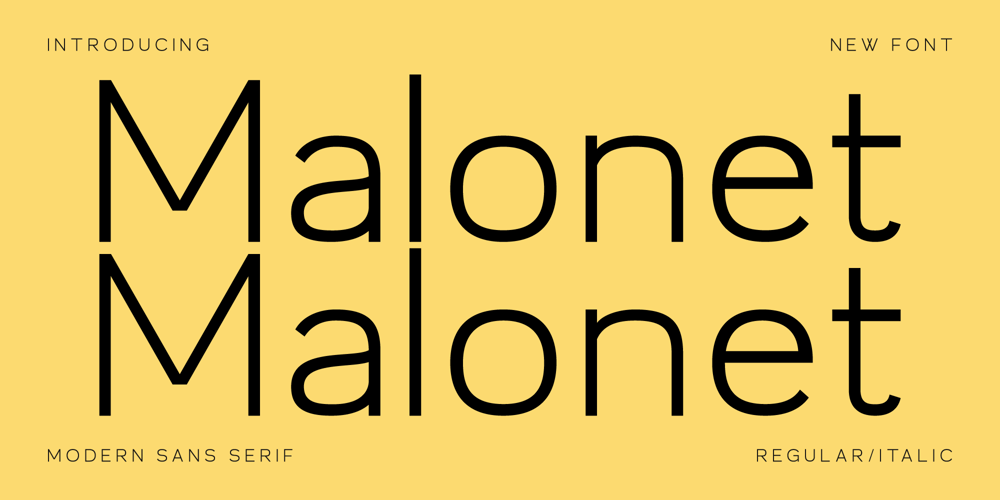
Malonet Font Family was designed by Heru Utama Putra and published by Letterena Studios. Malonet contains 2 styles and family package options. A serif modern and classic typeface that has its own unique style & modern look.This typeface is perfect for an elegant & luxury logo, book or movie title design, fashion brand, magazine, clothes, lettering, quotes, and so much more.